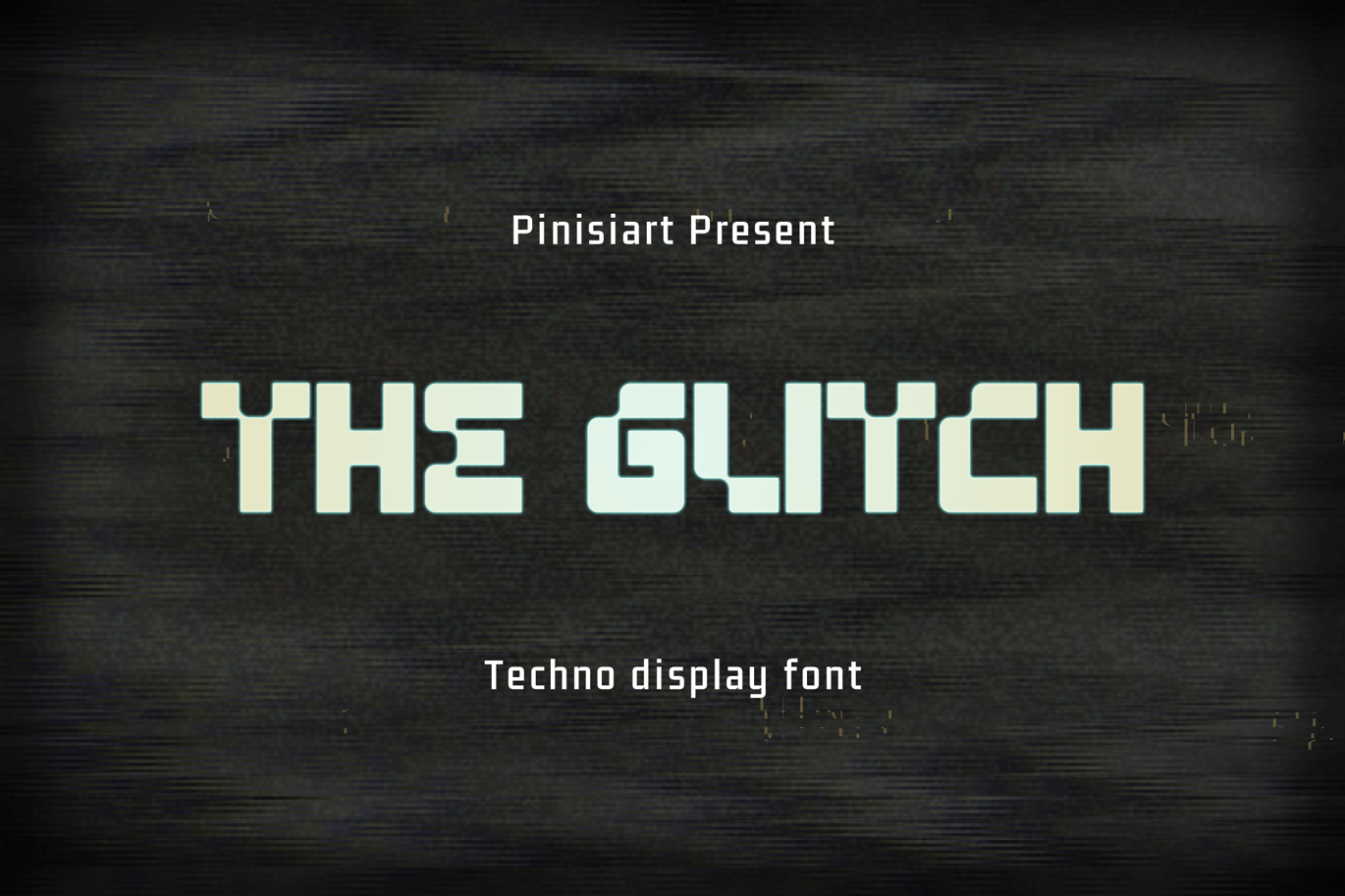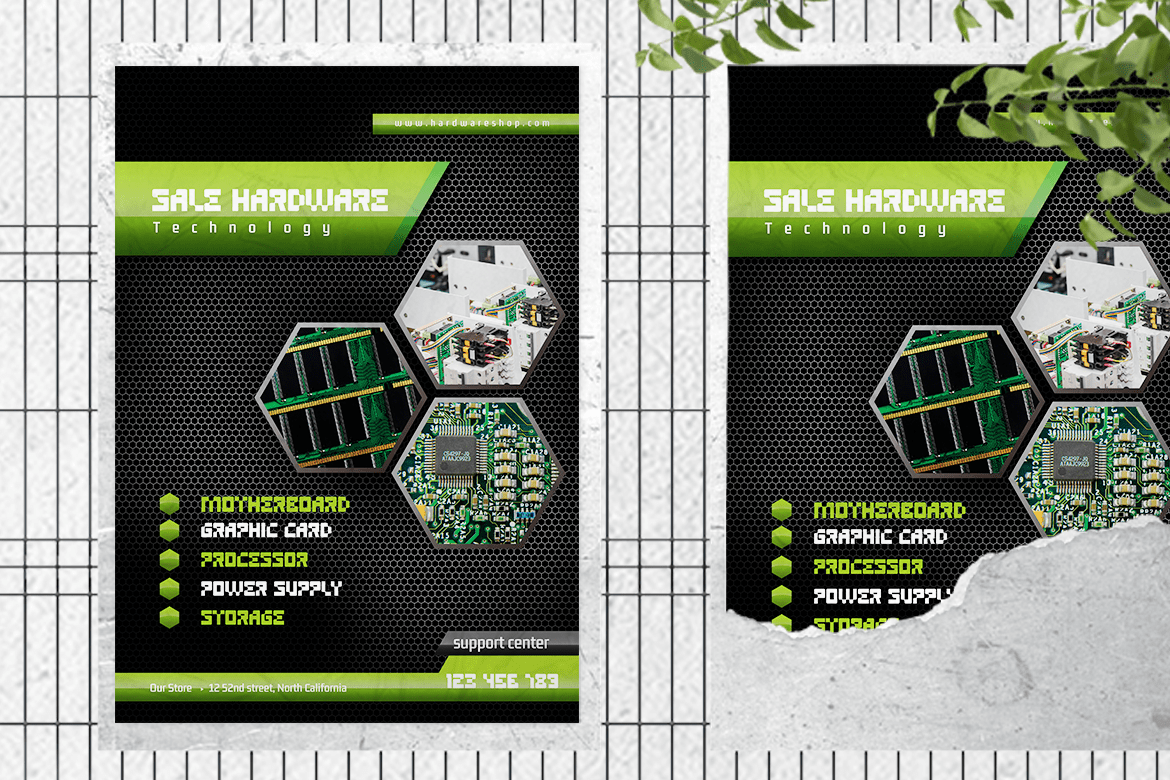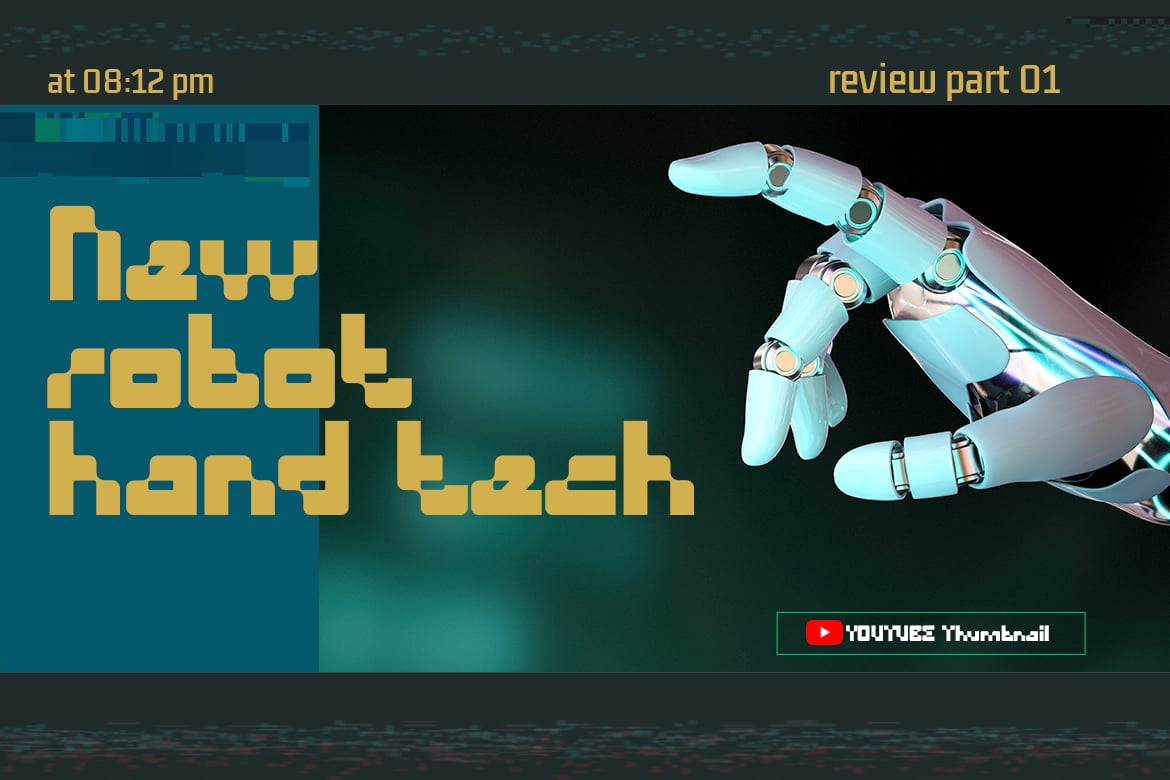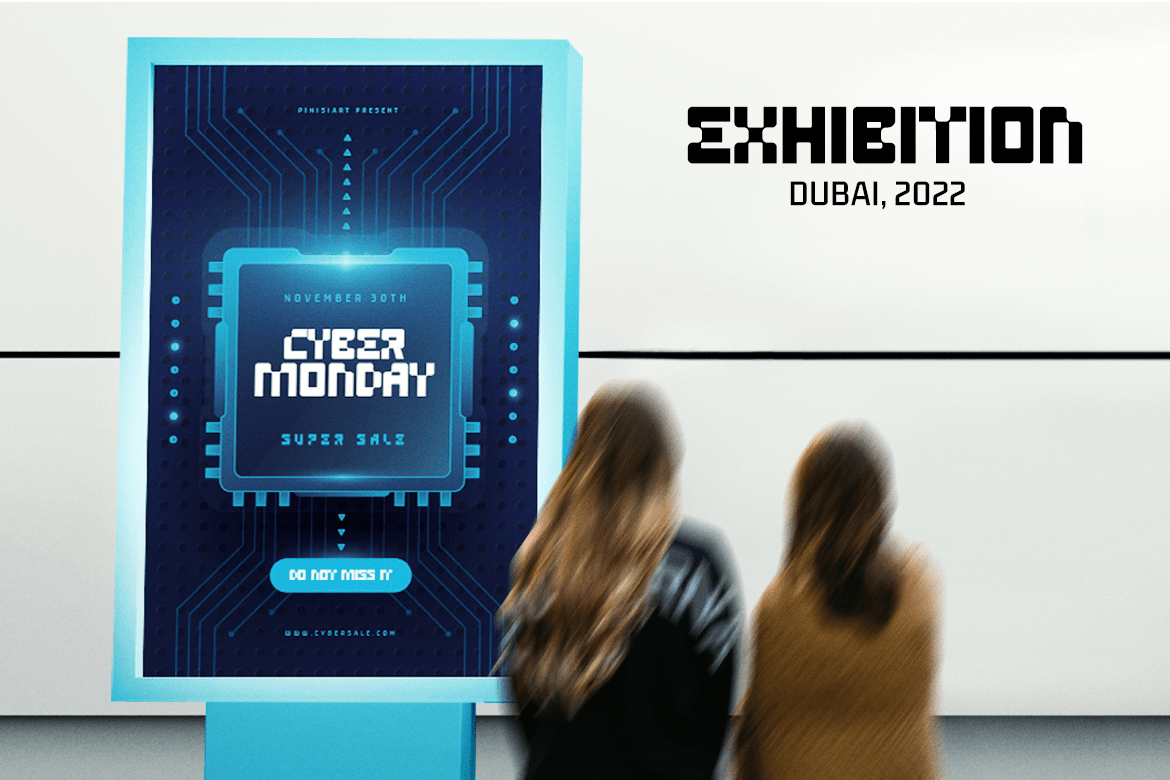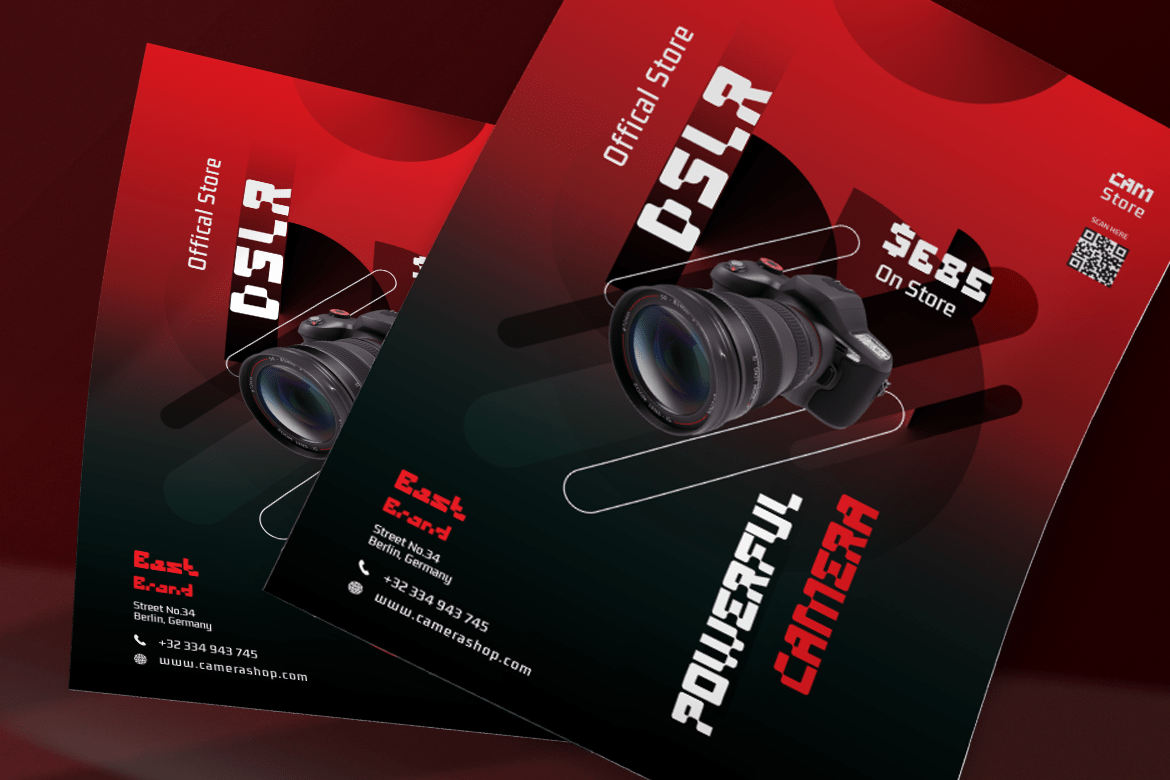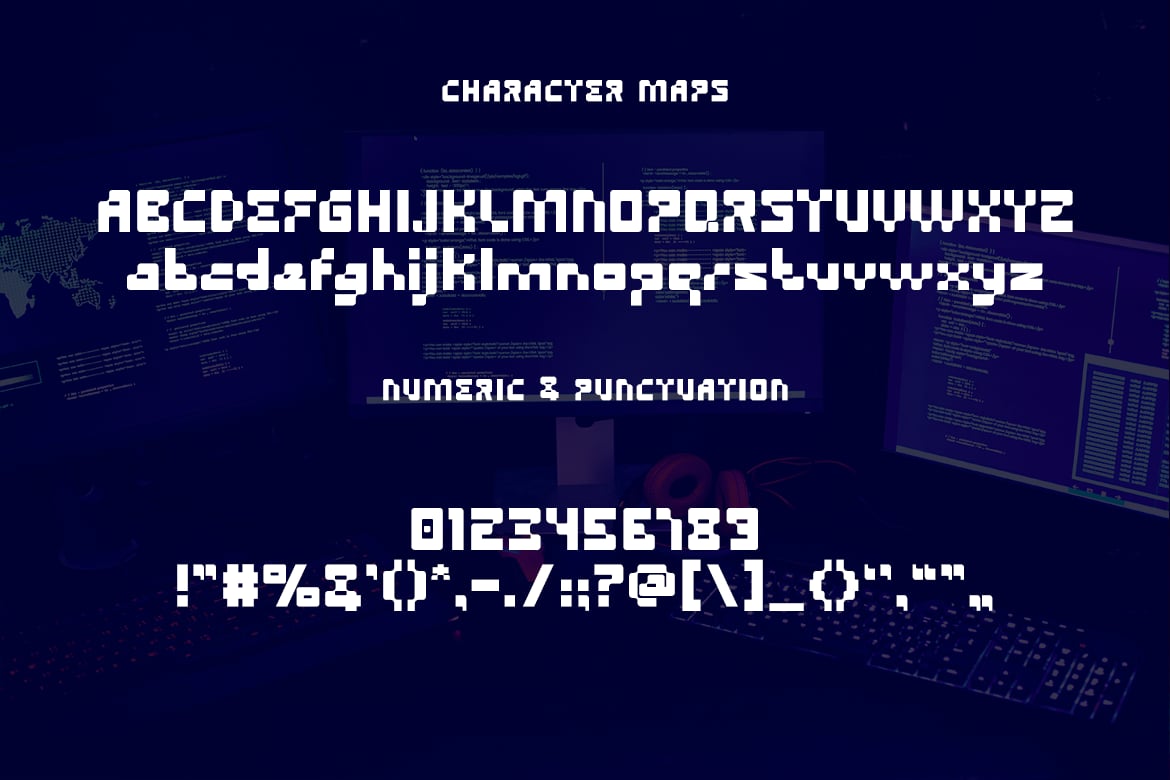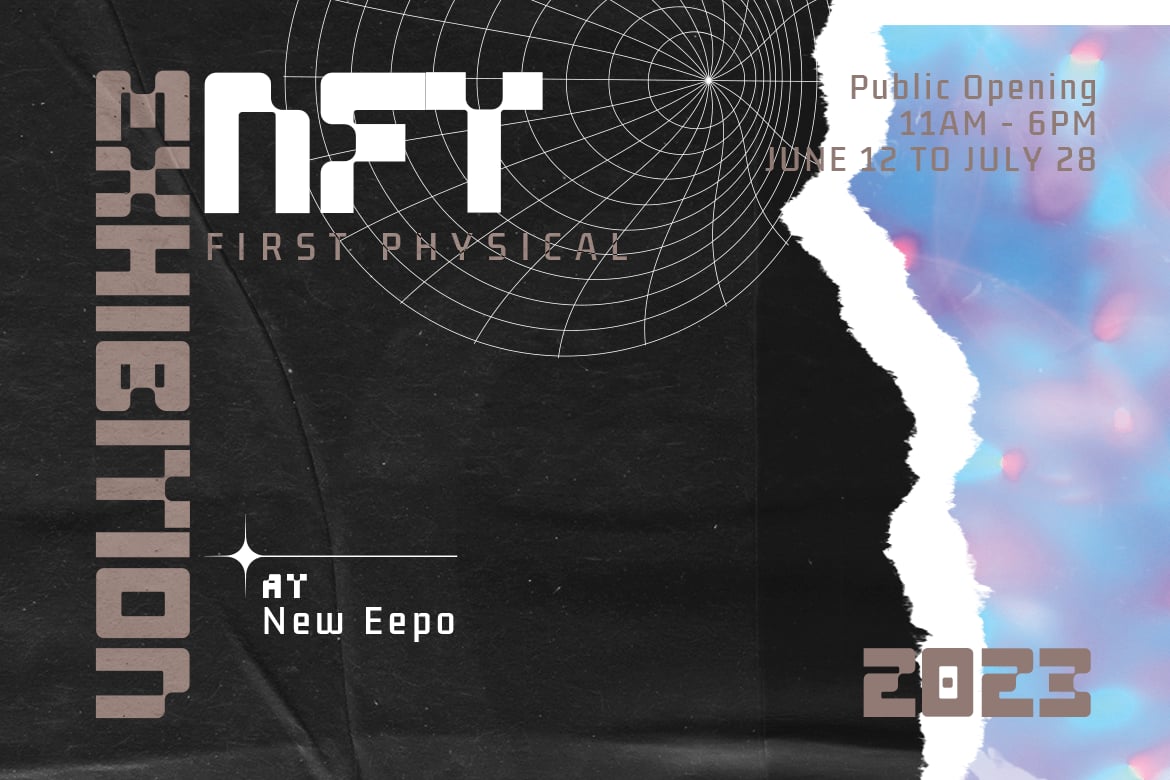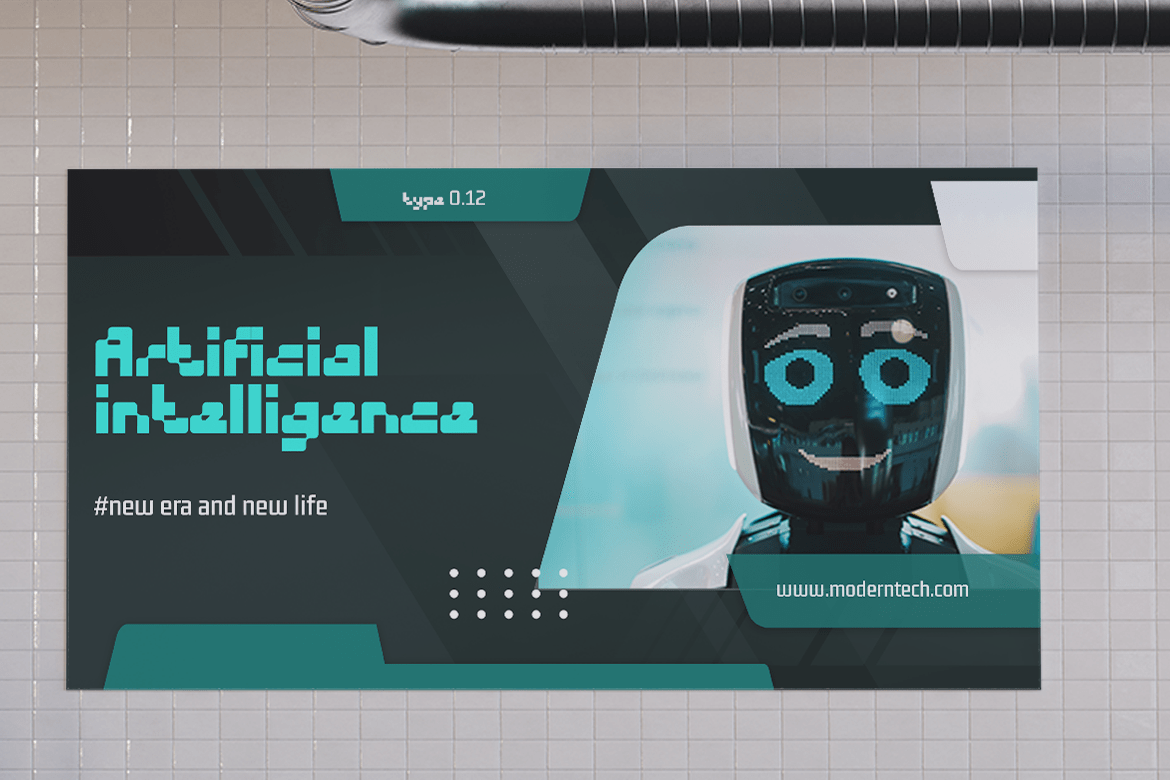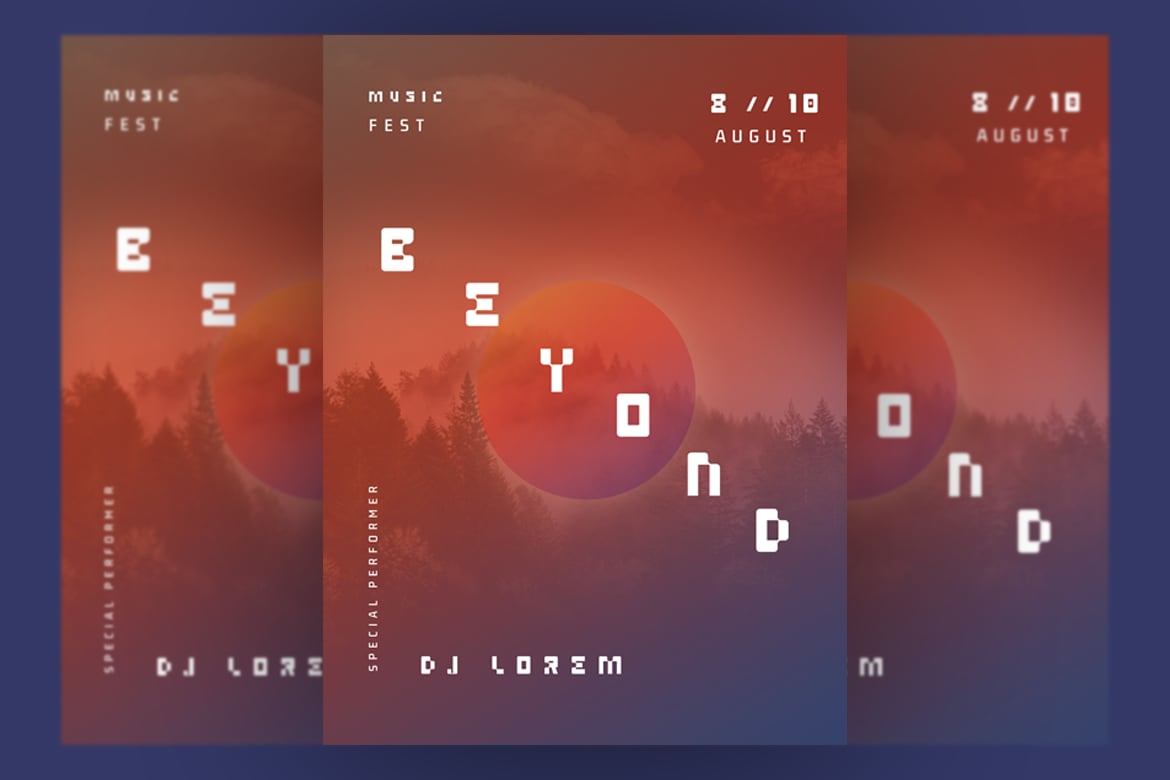
The Glitch – Techno Display Font
The world of technology is what The Glitch is all about. It looks digitalized, it looks like being computerized.
Suit perfectly for future and science segmented magazine, poster, movie title, music poster, youtube covers, youtube thumbnails, social media page covers and so on…